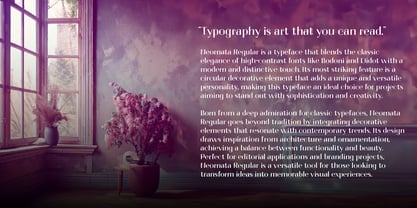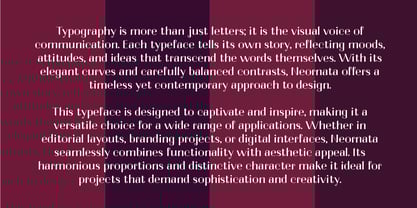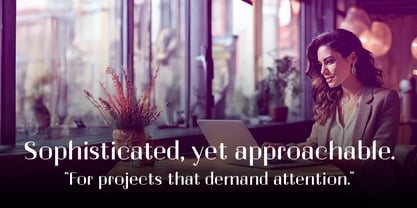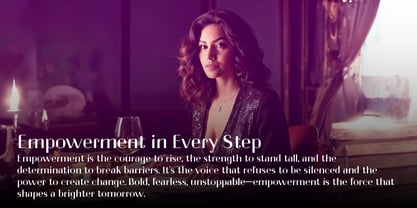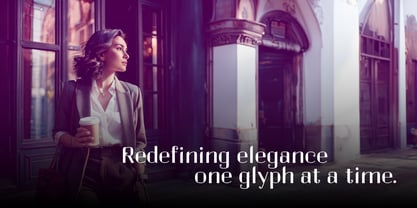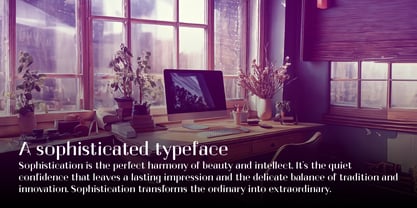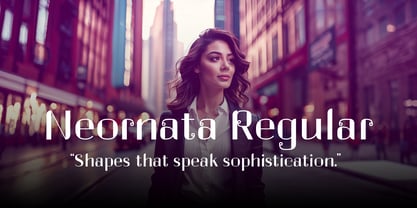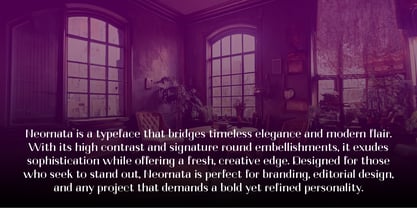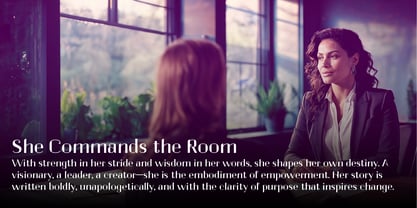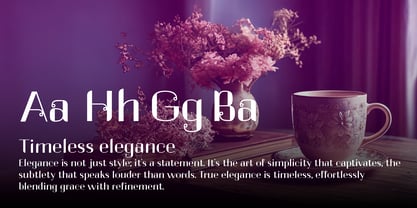
Neornata
by Acid Glyph
The Neornata Font Family was designed by Reynaldo Bedoya and published by Acid Glyph. Neornata contains 1 styles.
Neornata Regular is a typeface that blends the classic elegance of high-contrast fonts like Bodoni and Didot with a modern and distinctive touch. Its most striking feature is a circular decorative element that adds a unique and versatile personality, making this typeface an ideal choice for projects aiming to stand out with sophistication and creativity.
Born from a deep admiration for classic typefaces, Neornata Regular goes beyond tradition by integrating decorative elements that resonate with contemporary trends. Its design draws inspiration from architecture and ornamentation, achieving a balance between functionality and beauty. Perfect for editorial applications and branding projects, Neornata Regular is a versatile tool for those looking to transform ideas into memorable visual experiences.
Designers: Reynaldo Bedoya
Publisher: Acid Glyph
Foundry: Acid Glyph
Design Owner: Acid Glyph